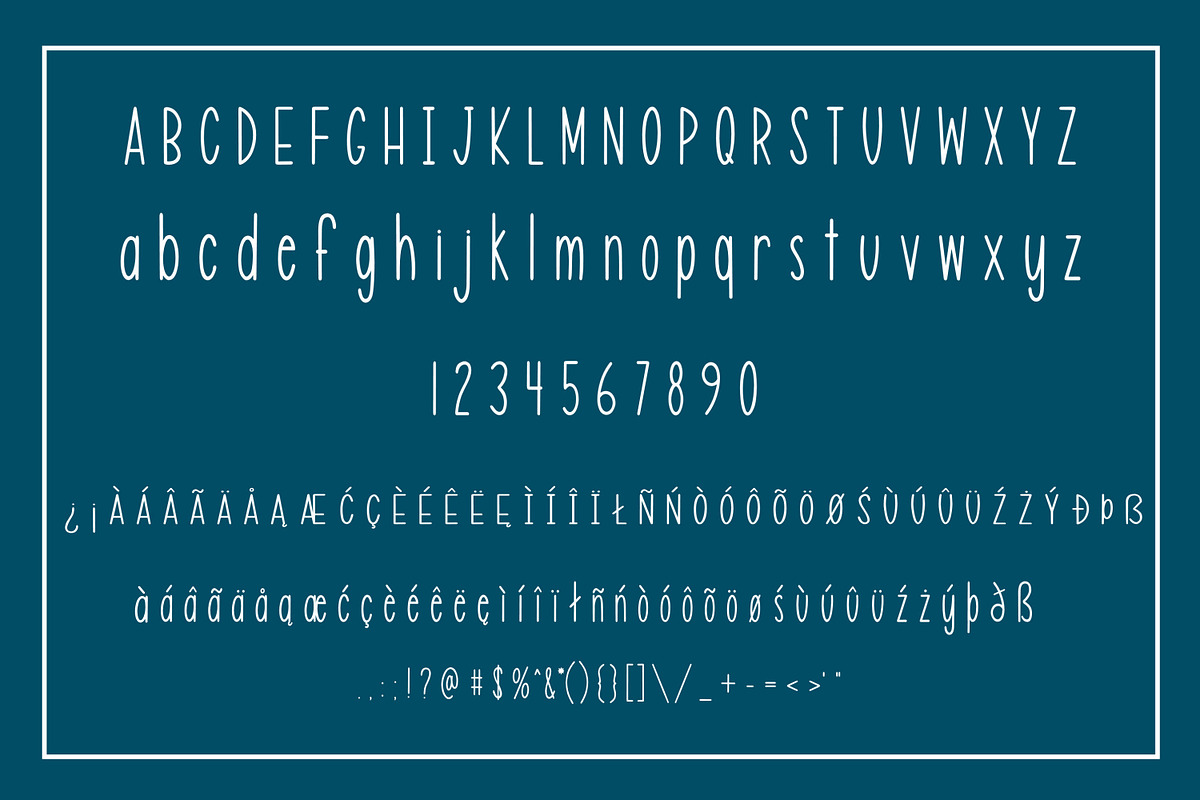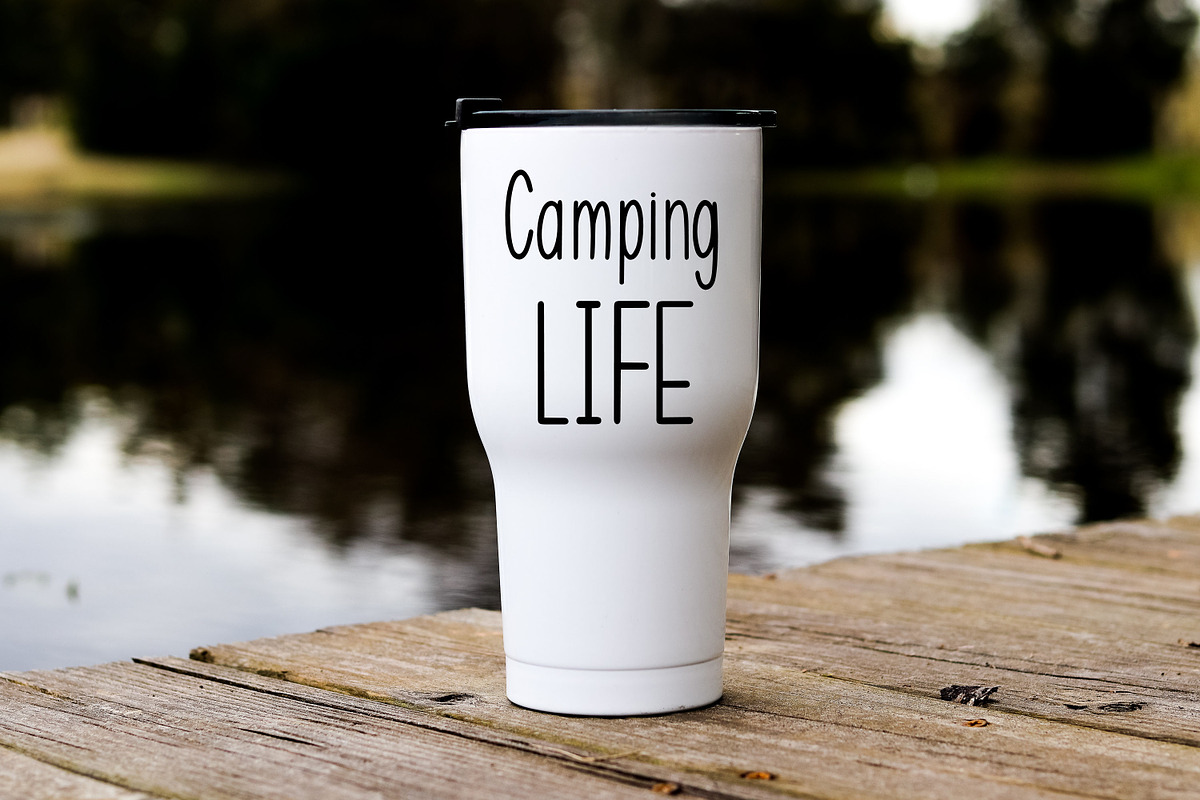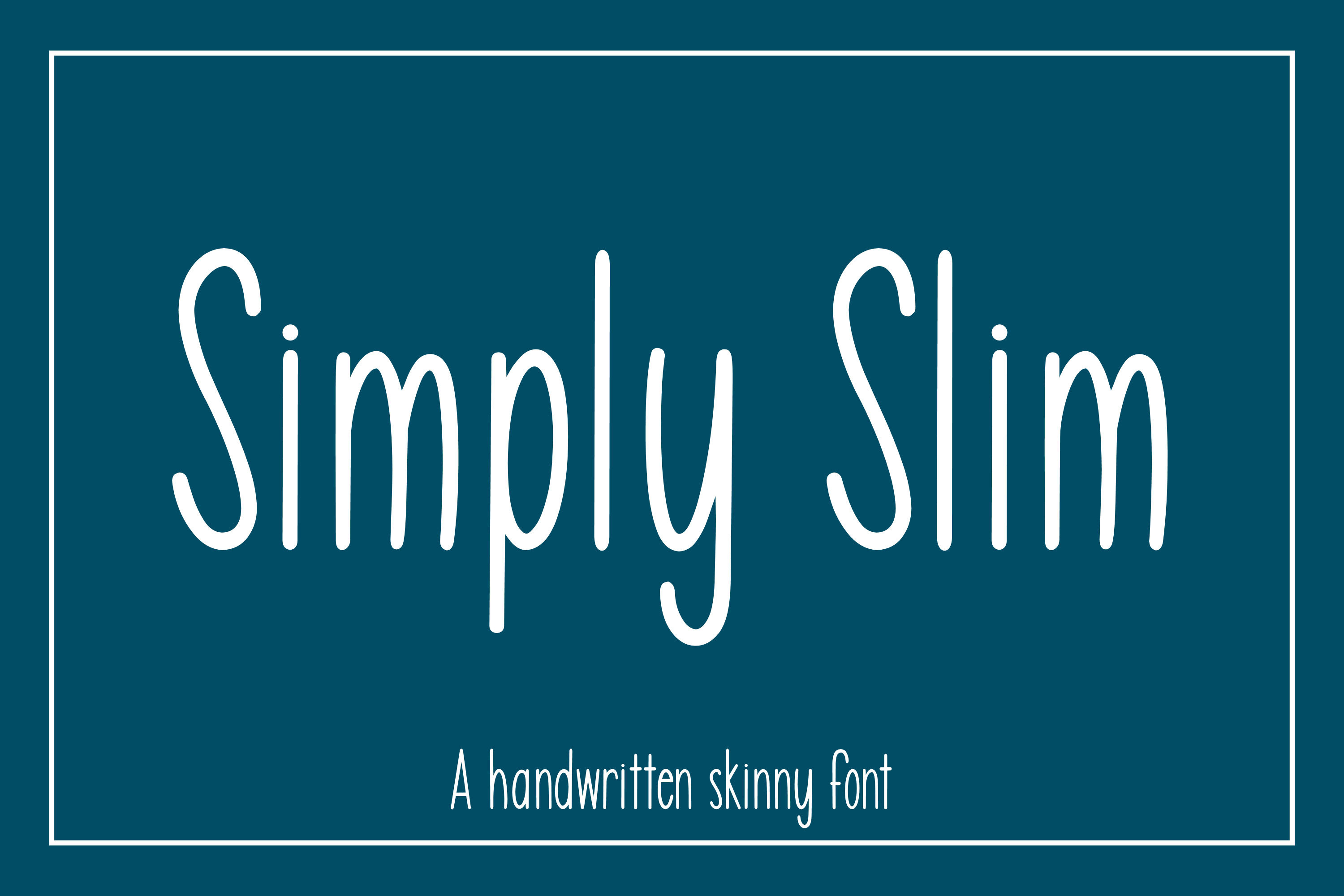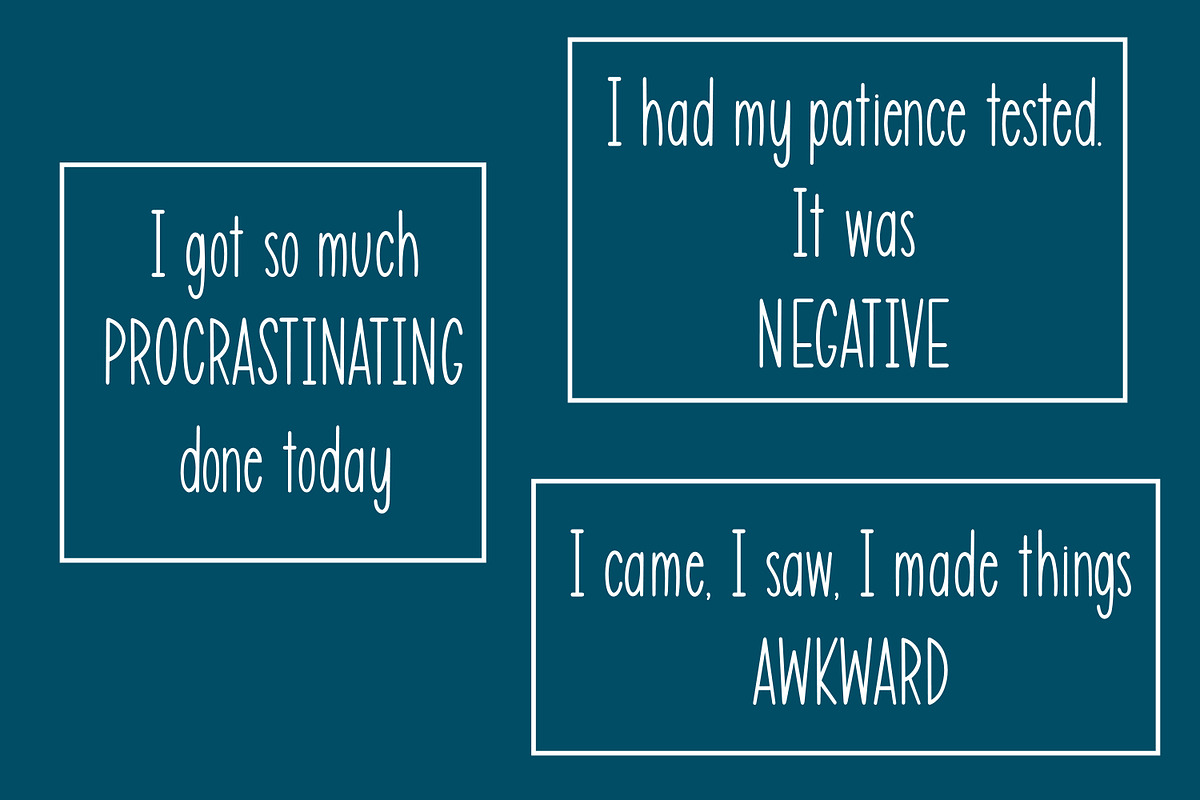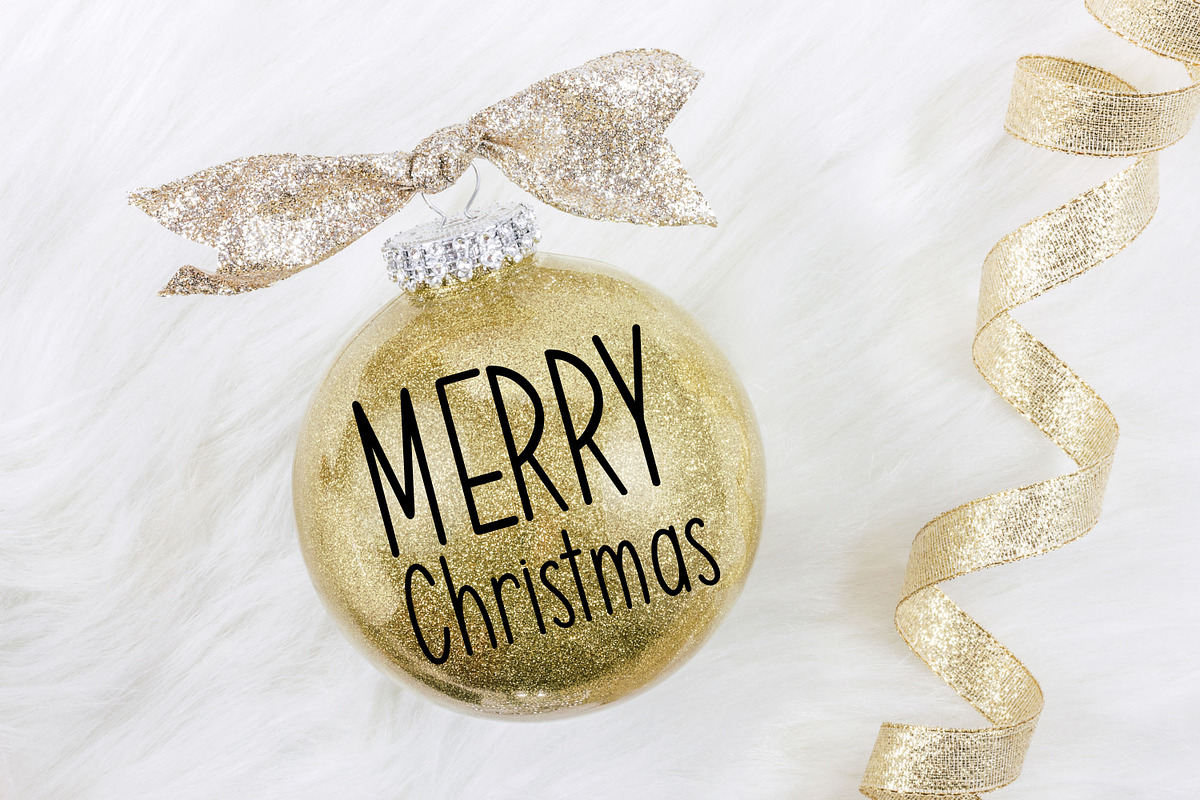
Simply Slim - Skinny font
Simply Slim is a handwritten font made up of capital letters A-Z, lowercase letters a-z, numbers 0-9, accented characters and punctuation.